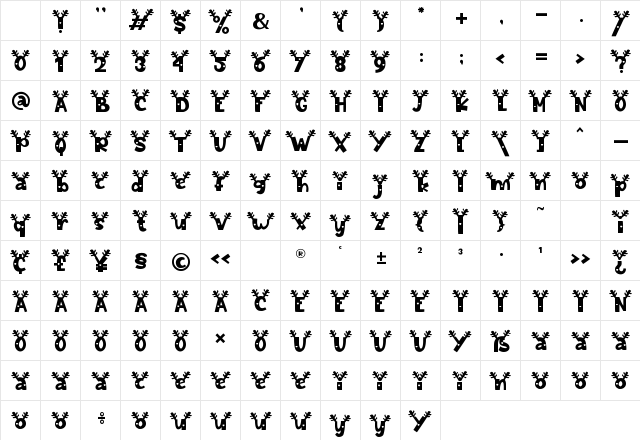
Complete Frosty Faktur Deer Regular glyph index. Displaying only characters natively supported by Frosty Faktur Deer Regular font.
Frosty Faktur Deer is a composed and adaptable typeface that performs quietly and consistently across a wide range of design contexts.